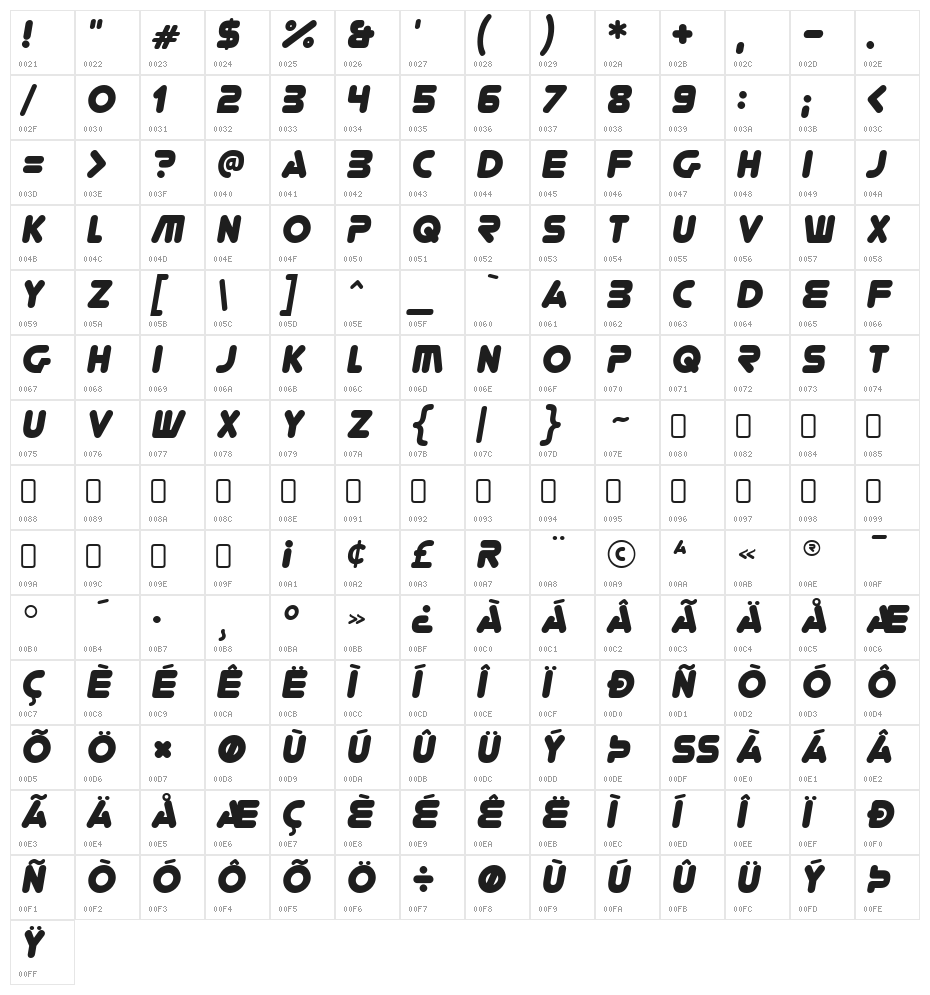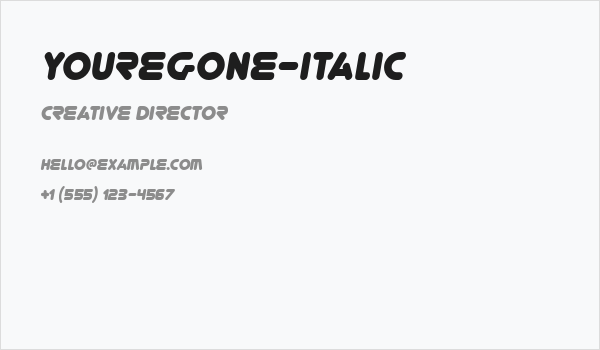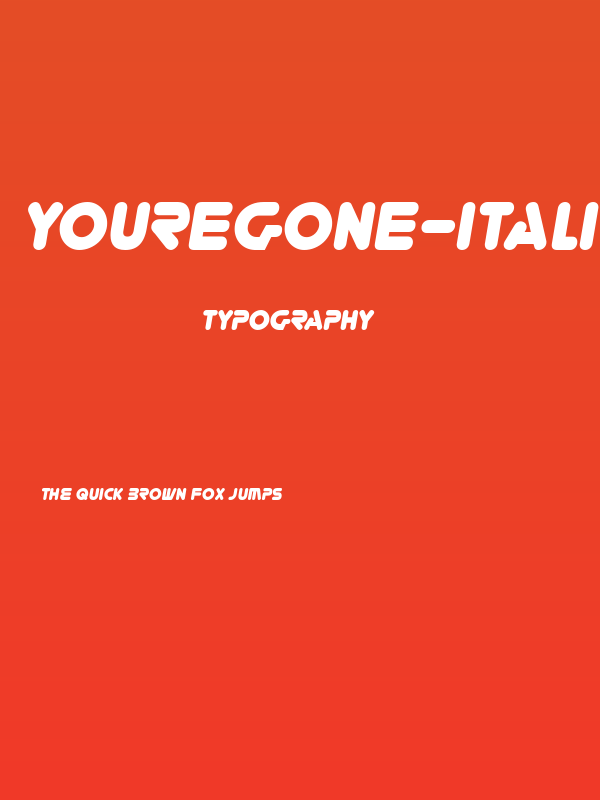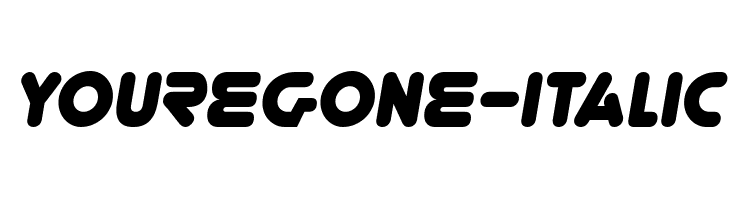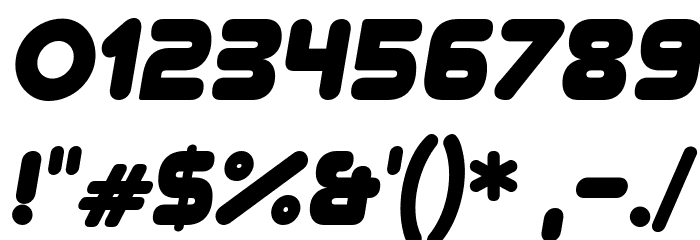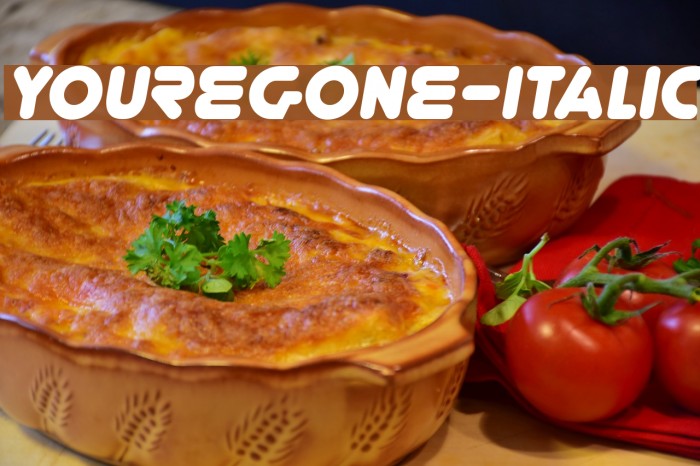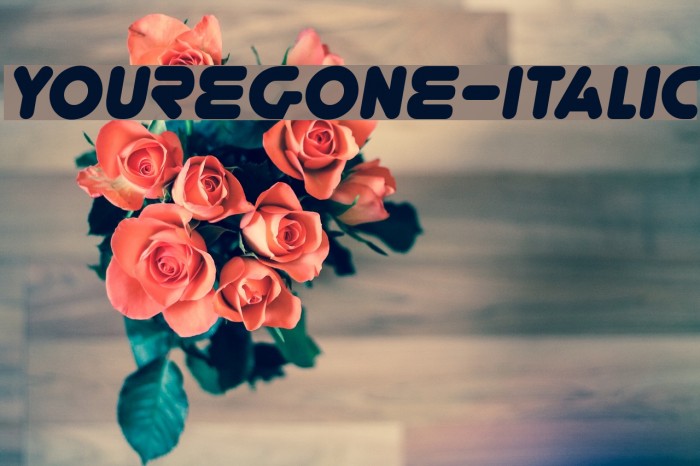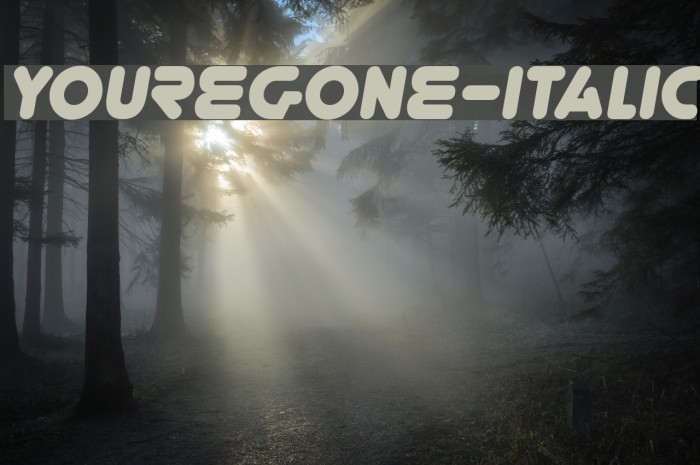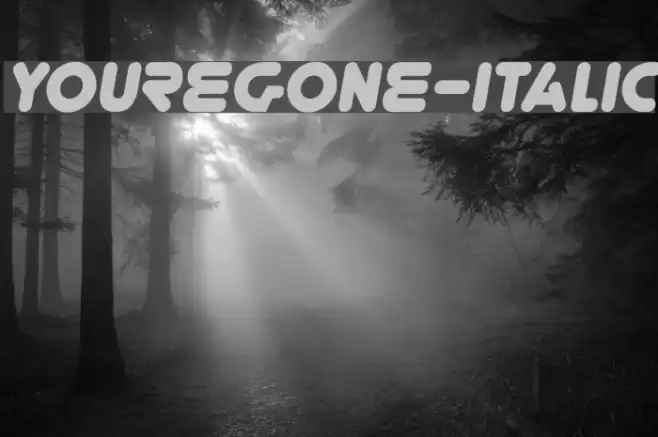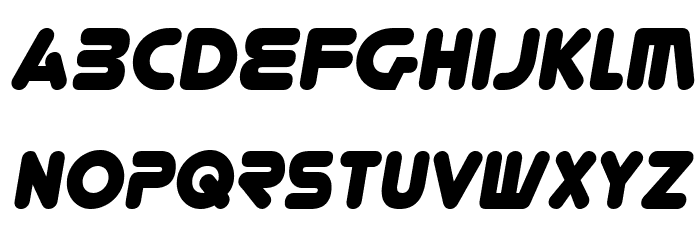
YoureGone-Italic Font
YoureGone-Italic Description
This font features bold, rounded characters with a distinct italic slant, giving it a dynamic and modern appearance. The letters are uniformly thick, contributing to a strong visual impact. The rounded edges and consistent stroke width create a friendly and approachable feel, while the italic angle adds a sense of movement and energy. The numbers and special characters maintain the same stylistic elements, ensuring a cohesive look across all glyphs. This font is well-suited for projects that require a bold statement or a contemporary touch.
| Proposed Projects | Ideal for branding, advertising, posters, and digital media where a bold and modern look is desired. |